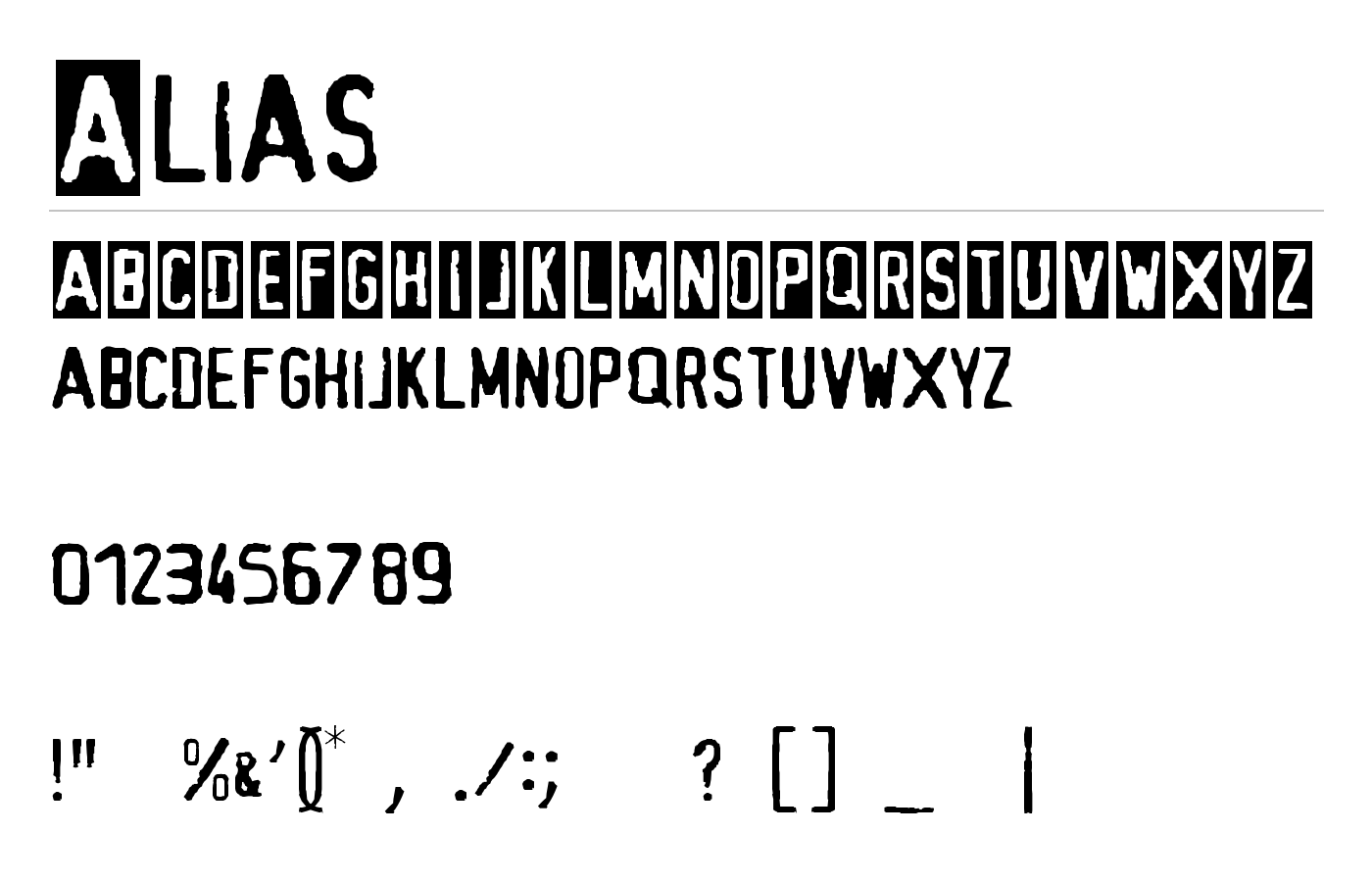
Alias Font is a distinctive, rough-edged sans serif typeface with a bold, hand-stenciled feel that brings a raw, industrial vibe. Its uneven stroke widths and slightly irregular shapes add a touch of vintage authenticity, making it ideal for creative headlines, packaging, and branding that seek a gritty, urban, or rebellious character. This font works well where a strong, eye-catching display is needed, conveying a sense of individuality and rugged style.
Alias Font